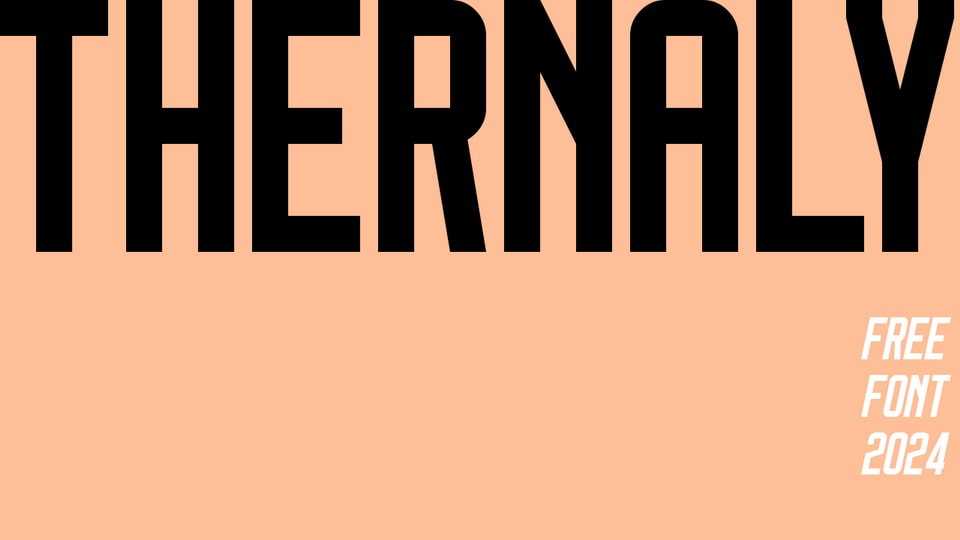
Download Thernaly font, a bold, condensed geometric display typeface that exudes strength and precision with its blocky letterforms and industrial aesthetic.